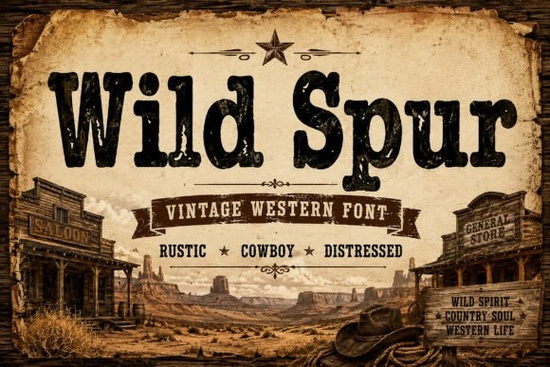
If you're looking for a font that feels like it came straight off a weathered saloon door or a hand-painted ranch sign, Wild Spur Font fits the bill. It’s a slab-serif typeface with intentional texture and weight designed not to look polished, but purposefully rugged. Think of it as the kind of font you’d see on a vintage Western movie poster, a craft beer label for a small-batch bourbon, or a rustic wedding invitation set on reclaimed wood. It’s not just “old-looking” it’s built with authentic western typography cues: strong verticals, squared serifs, uneven edges, and subtle grain that mimics aged ink on burlap or faded paint on barn wood.
What makes Wild Spur different from other rustic fonts?
Many “vintage” fonts lean too clean or overly decorative either too smooth to feel real, or too busy to read at a glance. Wild Spur strikes a balance: it’s highly legible even at smaller sizes (great for apparel tags or product labels), yet unmistakably textured. Its letterforms are based on real 19th-century American signage not digital reinterpretations. You’ll notice subtle variations in stroke weight, intentional ink bleed effects, and spacing that echoes hand-set metal type. That means it works well both digitally and in print, especially when paired with natural materials like kraft paper, denim, or unbleached cotton.
Where does Wild Spur work best?
This font shines where authenticity matters more than perfection. Here are a few real-world uses:
- Small business branding: A local BBQ joint, a heritage leather goods shop, or a family-run vineyard can use Wild Spur for logos, menus, or storefront signage without feeling costumed or gimmicky.
- Print-on-demand designs: T-shirts, mugs, and tote bags with phrases like “Ranch Life,” “Dust & Denim,” or “No Regrets, Just Rodeo” gain instant character with this font.
- Craft projects: Vinyl cutters and Cricut users appreciate its bold outlines and clear negative space making it easy to weed and layer on wood signs or iron-on transfers.
- Book covers and indie publishing: Especially for western fiction, historical nonfiction, or memoirs tied to rural life it adds visual grounding without distracting from the title.
How to pair Wild Spur with other fonts
Because it carries strong personality, Wild Spur pairs best with simpler, neutral companions. Try it with a clean sans-serif (like Montserrat or Lato) for body text or captions this contrast keeps things readable while letting Wild Spur anchor the headline. For deeper vintage cohesion, consider pairing it with a complementary slab-serif like Farmhouse Vintage Font, which shares similar roots but offers softer edges and slightly more versatility across layouts. Both are part of Creative Fabrica’s curated collection of slab-serif fonts designed for real design workflows not just mood boards.
Technical notes for designers and crafters
A note on authenticity vs. cliché
Western design can easily slip into caricature think cartoon cacti, exaggerated starbursts, or overused “wanted” motifs. Wild Spur avoids that by drawing from quieter, more grounded references: cattle brand stamps, early railroad timetables, and hand-lettered feed store signs. That subtlety gives it staying power. You won’t tire of it after three months, and your customers won’t mistake your brand for a theme park.
If you’re already working with western or farmhouse aesthetics, try swapping in Wild Spur for your next headline and compare how it reads next to something like Wild Spur Font. Notice how the texture adds depth without sacrificing clarity. Then test it at actual size on your intended medium: printed on a napkin, stitched onto a patch, or laser-etched on wood. Real-world testing beats any preview screen.
- Check your project’s language needs Wild Spur supports English and common Western European accents, but not extended Latin or Cyrillic.
- Pair it intentionally not just because it’s “vintage,” but because its rhythm matches your message’s tone.